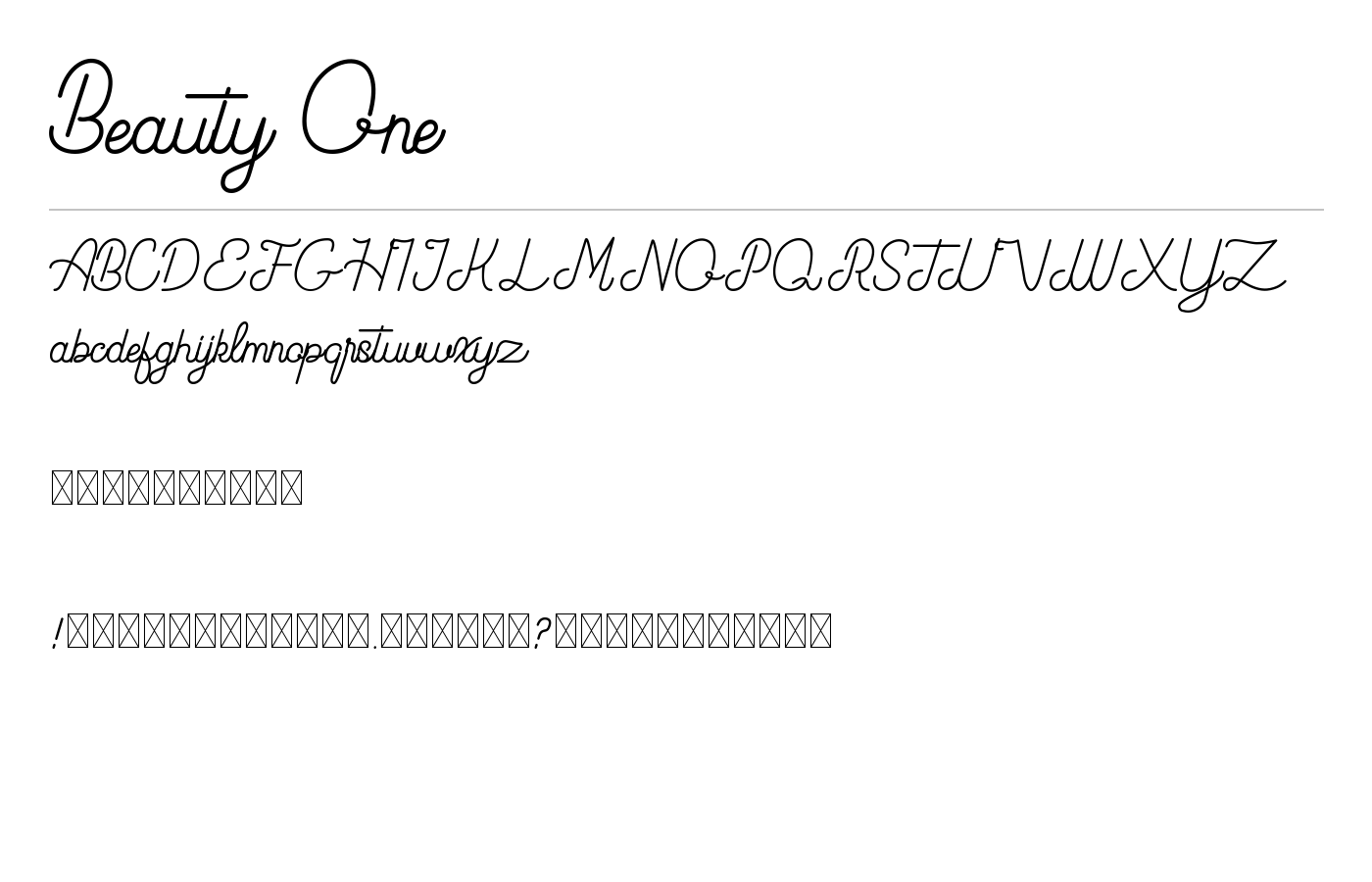
Beauty One is a delicate, elegant script font with slender, flowing letterforms that evoke a handwritten charm. Its thin strokes and graceful curves make it ideal for stylish branding, invitations, and feminine designs where a refined, sophisticated touch is desired. This font works best in decorative headlines or logos rather than body text, adding a sense of beauty and grace to any project.
Beauty One Font
About Beauty One Font